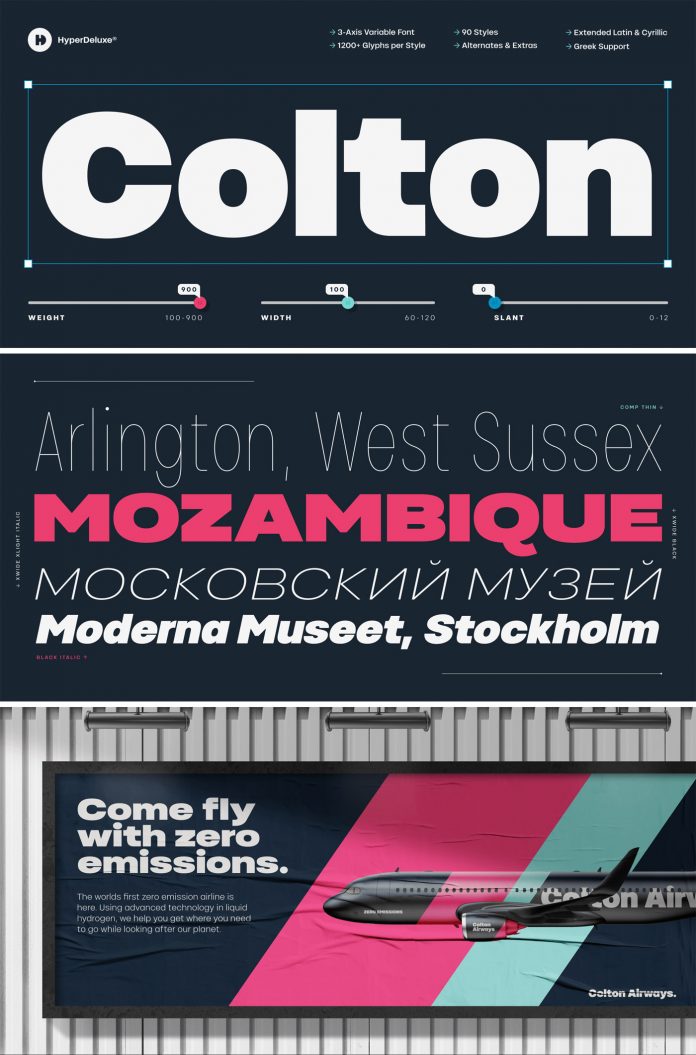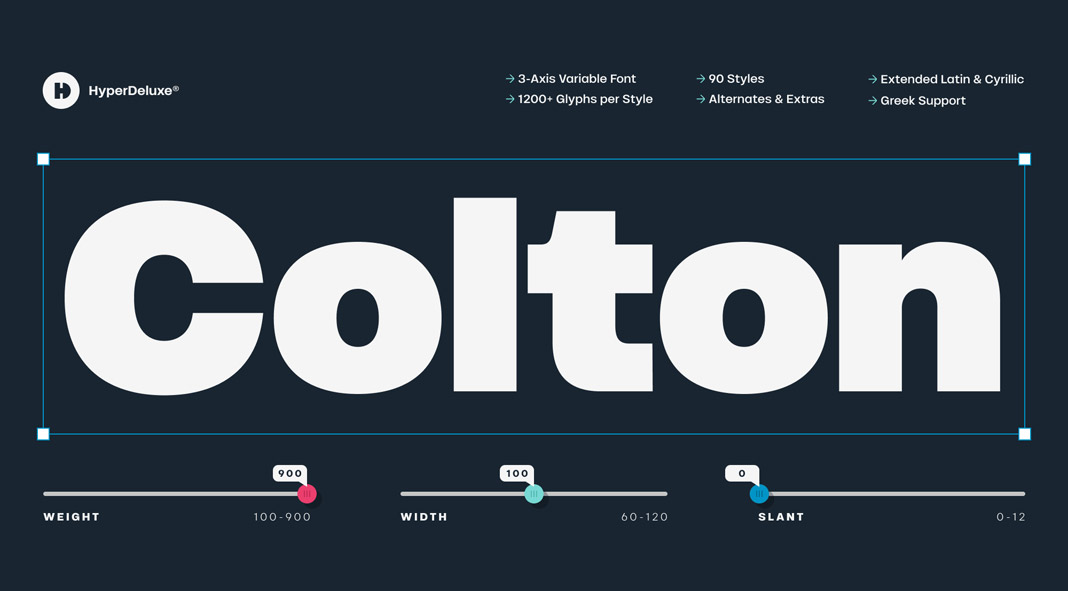
HD Colton, a modern sans serif font family that comes with ninety-one styles.
Designed and published by London, UK-based design studio HyperDeluxe, HD Colton is a massive sans serif font family equipped with ninety-one styles. Characterized by a striking combination of horizontal and vertical terminals mixed with squarish ovals, the HD Colton font family was designed with a confident and solid structure.
HyperDeluxe studio created this iconic typeface with five widths ranging from compressed to extra-wide. Its nine weights are accompanied by true italics. The HD Colton font family is equipped with 1200+ glyphs per style. Furthermore, the family supports 200+ languages including extended Latin, extended Cyrillic, and basic Greek. But that’s not all! Also included are five stylistic sets, two arrow sets, and numerous OpenType features. Just click on the following link to learn more about this outstanding super-family.